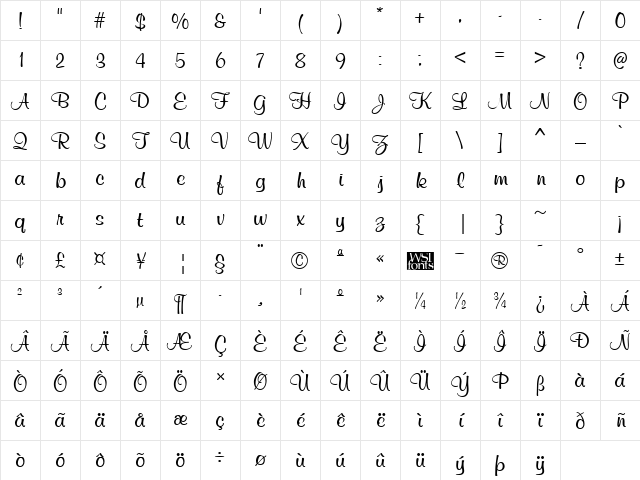
MurphyScriptViva Regular
Design Context for MurphyScriptViva
MurphyScriptViva flows with the natural rhythm of handwritten lettering, making it ideal for designs that call for warmth and personal expression.
Font Pairing: Combine MurphyScriptViva with a simple geometric sans for maximum contrast - the tension between flowing curves and clean structure is a classic typographic pairing.
Pro Tip: Use MurphyScriptViva for short runs of text - names, titles, or taglines. Extended body copy in script faces tires the eye quickly.